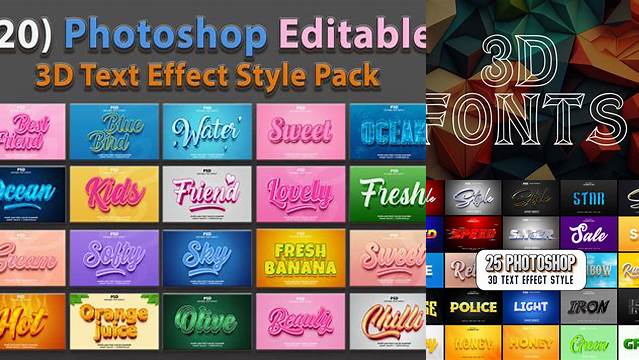
Download Free Photoshop 3D Fonts: A Designer's Guide
Hey guys! Are you looking to add some serious oomph to your designs? Then you've come to the right place! In this article, we're diving deep into the world of Photoshop 3D fonts, and the best part? We're focusing on how you can snag them for free! Whether you're a seasoned designer or just starting out, 3D fonts can be a game-changer, adding depth, dimension, and a professional touch to your projects. From eye-catching headlines to stunning logos, the possibilities are endless. So, let's get started and explore the fantastic world of free Photoshop 3D fonts!
Let's kick things off by understanding what exactly 3D fonts are and why they're so awesome. Unlike your regular 2D fonts, 3D fonts have depth and perspective, making them pop off the screen. Think of it like adding a third dimension to your text – suddenly, your words have volume, shadows, and highlights, making them incredibly visually appealing. 3D fonts are created using specialized software or techniques within programs like Photoshop, allowing designers to manipulate the text in three-dimensional space. This means you can rotate, extrude, and add textures to your letters, creating a realistic and dynamic effect.
Now, why should you bother using them? Well, for starters, they make your designs stand out! In a world saturated with flat, two-dimensional graphics, a 3D font can instantly grab attention and convey a sense of professionalism and creativity. They're perfect for headlines, posters, logos, and any other design element where you want to make a bold statement. Imagine a website header with a striking 3D font, or a movie poster with a title that literally jumps off the page – that's the power of 3D fonts! Moreover, using 3D fonts in Photoshop allows for a high degree of customization. You can adjust the lighting, shadows, textures, and angles to perfectly match your design's aesthetic. This level of control means you can create a unique and impactful visual identity that truly represents your brand or project. Whether you're aiming for a futuristic, industrial, or playful look, there's a 3D font out there that can help you achieve it.
Okay, let's get down to the nitty-gritty and talk about some specific free 3D fonts that you can use in Photoshop. With so many options out there, it can be tough to know where to start. So, I've curated a list of some of my favorite fonts that are both visually stunning and readily available for free. Keep in mind that font availability can change, so it's always a good idea to double-check the licensing and download links before using them in your projects. First, consider "Extrude", a bold and modern 3D font that's perfect for headlines and posters. Its strong, geometric shapes give it a futuristic feel, and the extruded effect adds a cool sense of depth. This font works particularly well for tech-related projects or anything that needs a bold, impactful look. Next up, we have "Blocky 3D", a playful and chunky font that's great for kids' designs or anything that needs a touch of fun. Its rounded edges and blocky appearance make it highly legible, even at smaller sizes. This font is excellent for logos, website headers, and social media graphics.
Another fantastic option is "Retro 3D", a vintage-inspired font that evokes a sense of nostalgia. Its classic letterforms and subtle 3D effect make it perfect for retro-themed projects, branding, and packaging design. This font can add a touch of elegance and sophistication to your work. Don't forget about "Outline 3D", a versatile font that features an outlined 3D effect. This font is clean and modern, making it suitable for a wide range of applications, from website design to print materials. The outlined style adds a unique visual element without being too overwhelming. Another noteworthy mention is "Shadowed 3D", a font that creates depth using shadows and highlights. This font is simple yet effective, adding a subtle 3D effect that's perfect for body text or smaller headings. Its clean lines and readability make it a practical choice for various projects. When choosing a 3D font, think about the overall style and message of your design. A bold, geometric font might be perfect for a tech startup, while a playful, rounded font could be better suited for a children's book. Experiment with different fonts and see how they look in your designs. Don't be afraid to mix and match fonts to create a unique visual hierarchy. Remember to always check the font's licensing terms before using it in your projects. Some fonts are free for personal use only, while others can be used for commercial purposes. Make sure you're complying with the terms to avoid any legal issues down the road.
So, you've got your free 3D fonts installed, and you're ready to create some stunning designs. Awesome! But before you go wild, let's talk about some tips for using 3D fonts effectively. Just like any design element, 3D fonts can be incredibly powerful, but they can also be overwhelming if not used correctly. First and foremost, consider readability. While 3D fonts are visually striking, some can be difficult to read, especially at smaller sizes. Choose fonts with clear, well-defined letterforms, and avoid overly ornate or complex styles for body text. 3D fonts are generally better suited for headlines, logos, and other prominent design elements where readability isn't as critical. Think about the overall design aesthetic. A 3D font should complement the rest of your design, not clash with it. Consider the color palette, imagery, and other design elements when choosing a 3D font. A futuristic, geometric font might be perfect for a tech-related project, while a vintage-inspired font could be better suited for a retro design.
Don't overdo the 3D effect. While depth and dimension are the hallmarks of 3D fonts, too much of a good thing can be distracting. Use the 3D effect subtly to enhance the font's appearance, rather than overwhelming it. Adjust the extrusion depth, lighting, and shadows to achieve a balanced look. Play with color and texture. Adding color gradients, patterns, or textures to your 3D fonts can make them even more visually appealing. Experiment with different combinations to create unique effects. For example, a metallic texture can give your font a futuristic or industrial look, while a gradient can add depth and dimension. Think about the context. Where will your design be used? A 3D font that looks great on a website header might not be suitable for a business card. Consider the medium and the intended audience when choosing a 3D font. Test your designs on different devices and screen sizes to ensure that the font looks good in all contexts. Use contrast effectively. Make sure your 3D font stands out from the background. Use contrasting colors and shadows to create visual separation. A dark 3D font on a light background, or vice versa, can be very effective. Experiment with different background colors and textures to see what works best. Remember to keep it simple. Sometimes, the best designs are the simplest. Don't feel like you need to use a complex or overly elaborate 3D font to make an impact. A clean, well-designed 3D font can be just as effective, if not more so. With these tips in mind, you'll be well on your way to using 3D fonts effectively in your designs. Experiment, have fun, and don't be afraid to try new things. The possibilities are endless!
So there you have it, guys! A comprehensive guide to finding and using free Photoshop 3D fonts. We've covered everything from what 3D fonts are and why they're so awesome, to where to find them, how to install them, and tips for using them effectively. I hope this article has inspired you to experiment with 3D fonts and add some serious visual punch to your designs. Remember, 3D fonts are a fantastic way to make your work stand out, whether you're creating logos, headlines, posters, or any other type of graphic. They add depth, dimension, and a professional touch that can take your designs to the next level. But don't just take my word for it – go out there and try them for yourself! Explore the resources I've mentioned, download some free 3D fonts, and start experimenting in Photoshop. Play with different styles, effects, and colors to see what you can create. And most importantly, have fun!
Designing with 3D fonts is a journey of discovery, and the more you practice, the better you'll become at using them effectively. So, don't be afraid to push your creative boundaries and try new things. Whether you're a seasoned designer or just starting out, 3D fonts can be a valuable addition to your toolkit. They offer a unique way to express your creativity and make your designs truly memorable. So, go ahead, give those free Photoshop 3D fonts a try, and let your imagination soar! Thanks for reading, and happy designing!